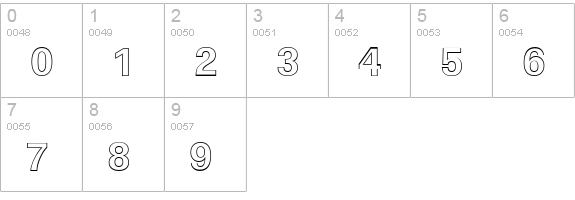
LinearOu-Bold is a strong, high-contrast variant in the LinearOu typeface family \xE2\x80\x94 well suited to headlines, attention-grabbing titles, and strong calls-to-action.
LinearOu-Bold is a modern and versatile font that exudes a sense of sophistication and elegance. Its clean lines and bold strokes make it perfect for a wide range of design projects, from branding to editorial design. The font's strong presence commands attention without being overpowering, making it a great choice for headlines, posters, and other display applications. What sets LinearOu-Bold apart is its unique blend of geometric shapes and sleek design elements, giving it a contemporary and stylish feel. Whether you're looking to create a sleek and modern look or add a touch of sophistication to your designs, LinearOu-Bold is sure to deliver. Best of all, LinearOu-Bold is available for free download at FontsMarket.com. So you can start using this stunning font in your projects right away without any cost. Don't miss out on the opportunity to elevate your designs with the timeless elegance of LinearOu-Bold. Download it today and see the difference it can make!